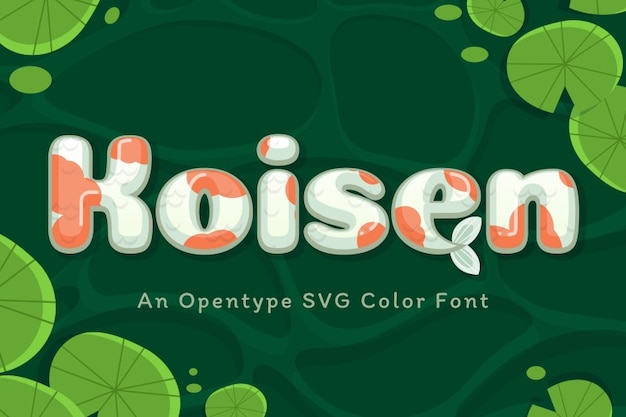
Koisen is a unique, animal-inspired font with rounded, flowing letterforms that evoke the graceful movement of koi fish. Featuring subtle animal print elements, it combines elegance with a playful, nature-inspired design. Ideal for projects with a natural or aquatic theme, Koisen brings a soft, organic feel that stands out beautifully in modern designs.